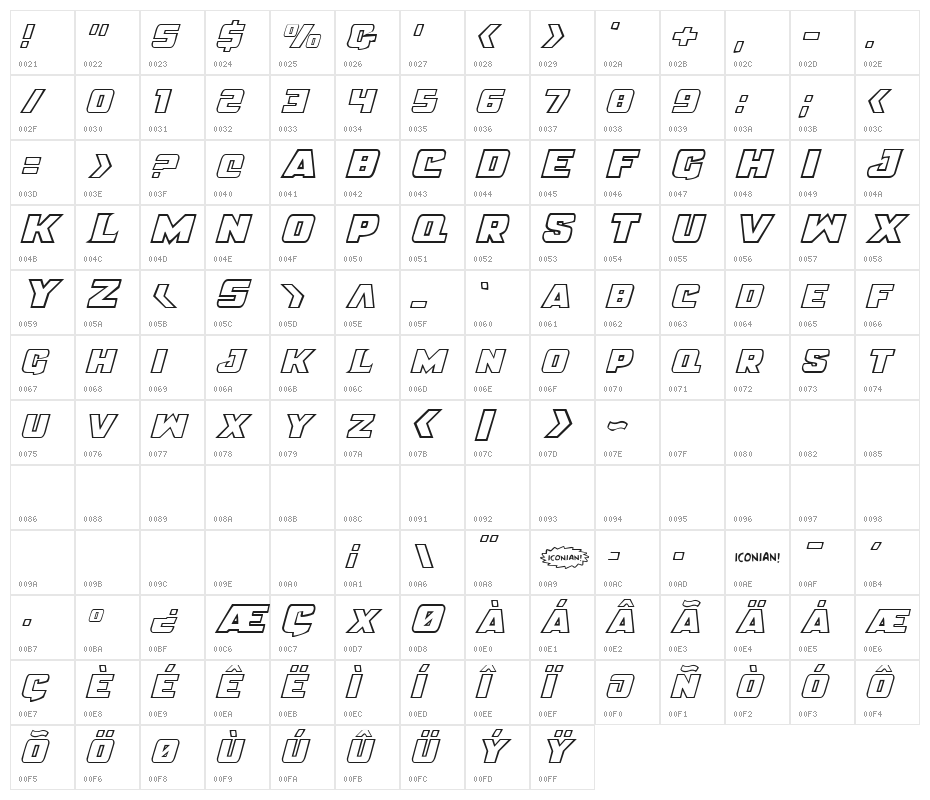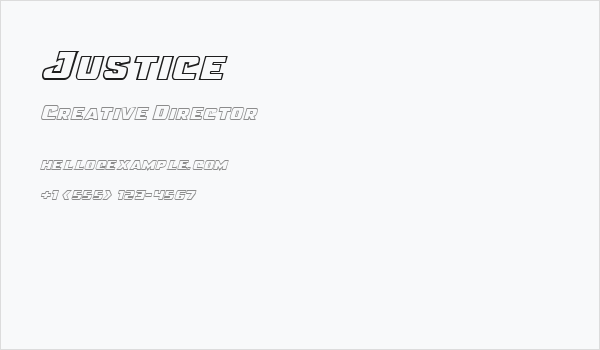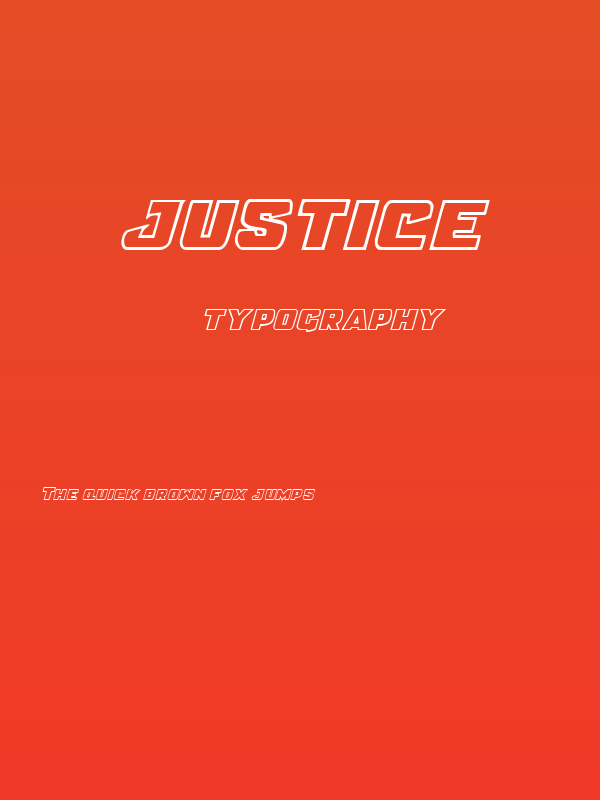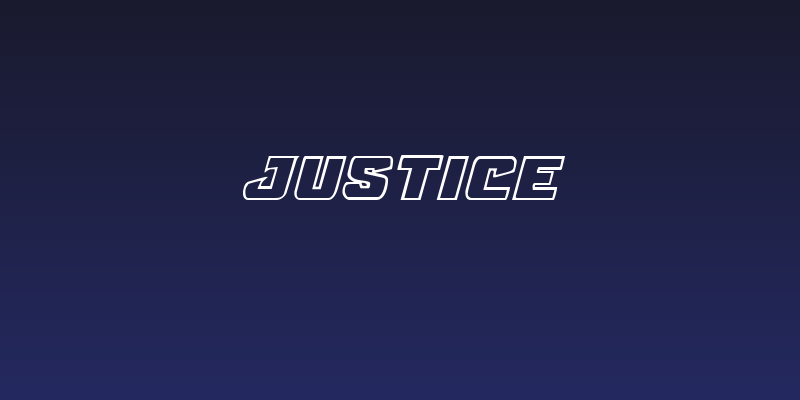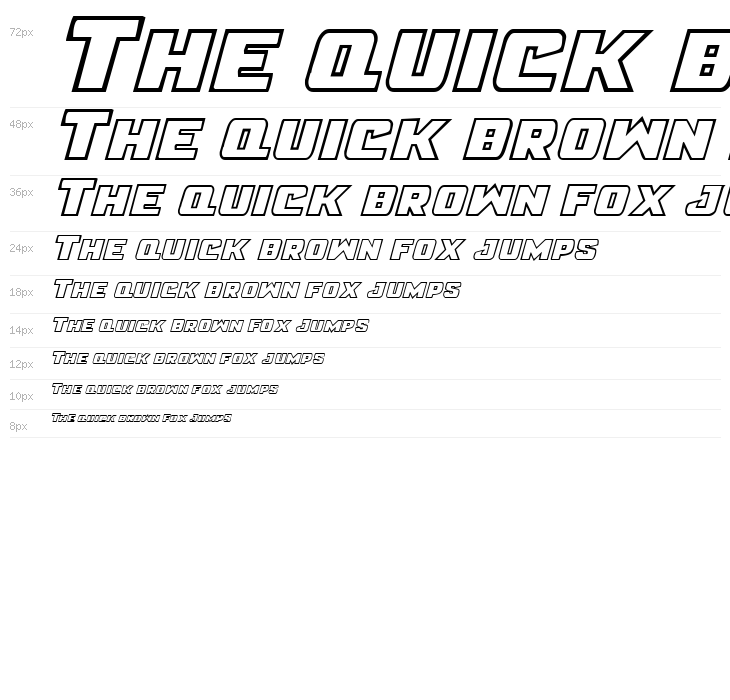
Justice Font
Justice Description
This font features a bold, geometric style with a strong presence. The characters are outlined, giving them a three-dimensional appearance that adds depth and interest. The angular design and sharp edges convey a sense of modernity and strength, making it ideal for impactful headlines or branding. The uppercase and lowercase letters maintain a consistent style, with a slight slant that suggests movement and dynamism. The numbers and special characters are equally bold and well-defined, ensuring readability and versatility across various applications.
| Proposed Projects | Ideal for sports branding, dynamic posters, video game titles, and futuristic designs. |